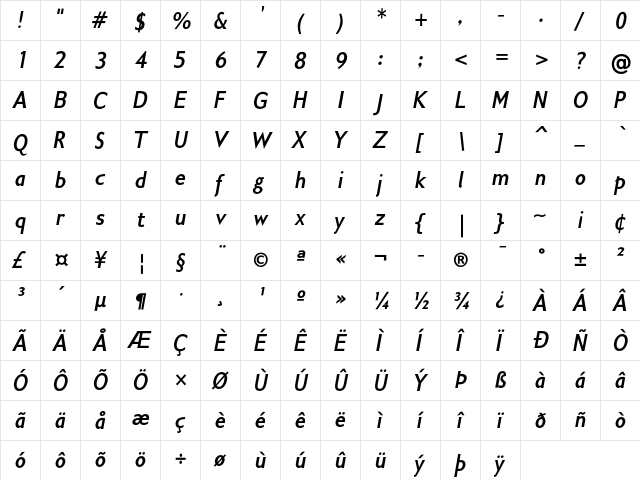
Gillius ADF No2 Cond Bold Italic Font Preview
Rendered live in your browserGillius ADF No2 Cond Bold Italic Font Details
| Foundry | Arkandis Digital Foundry. |
| Designer | Hirwen HARENDAL |
Design Context for Gillius ADF No2 Cond Typeface
Gillius ADF No2 Cond is a composed and adaptable typeface that performs quietly and consistently across a wide range of design contexts. Its italic angle brings a sense of urgency and motion to the letterforms. The heavy weight commands attention and anchors typographic hierarchies. Its narrow stance lets it pack a punch even in space-constrained designs.